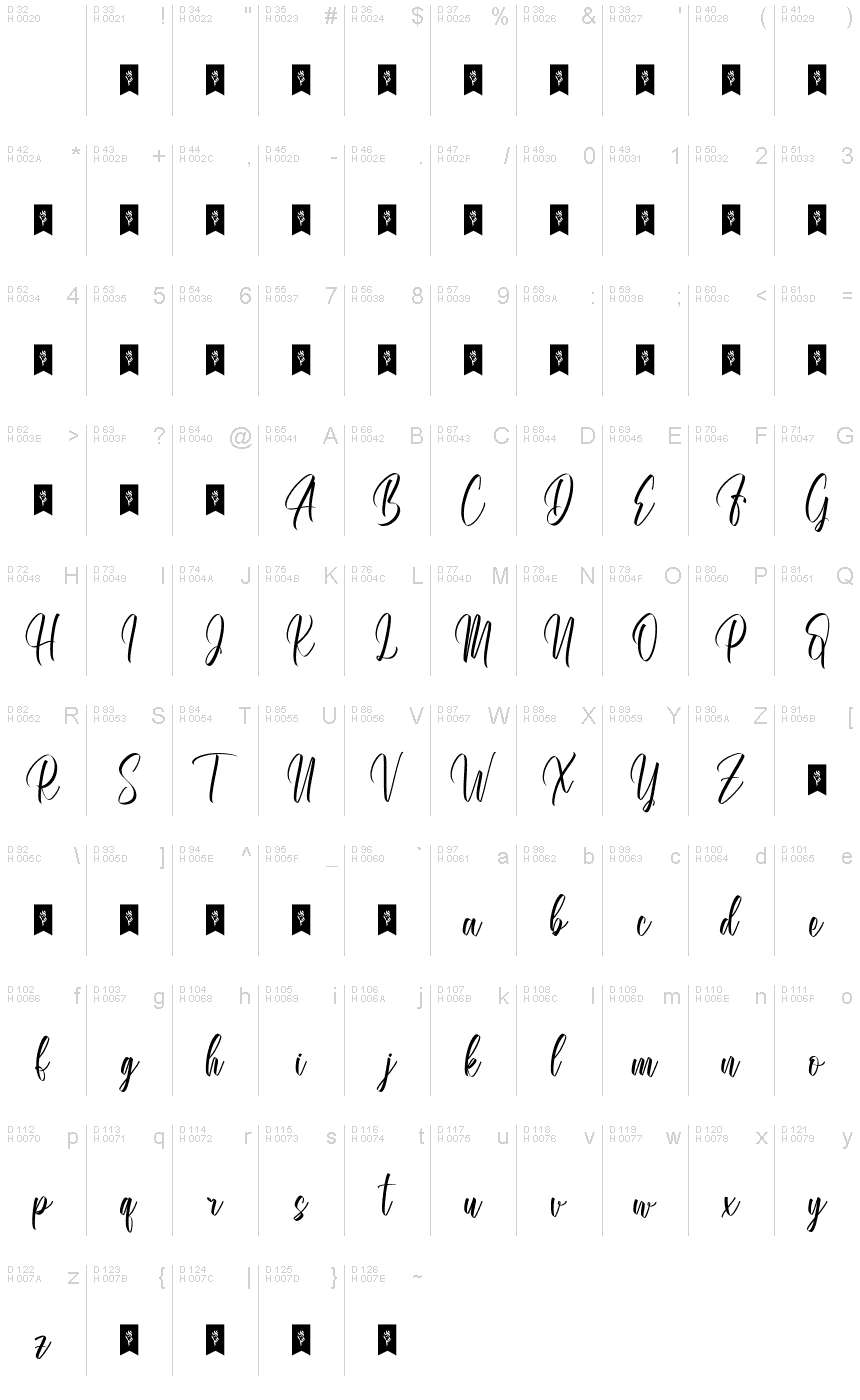
Amstallova
A Font by TheSundoro Std
Amstallova feels incredibly elegant and flowing. It looks stunning on wedding invitations, thank you cards, quotes, greeting cards, logos, business cards and every other design which needs a handwritten touch. It features a varying baseline, smooth lines, gorgeous glyph and stunning alternates.